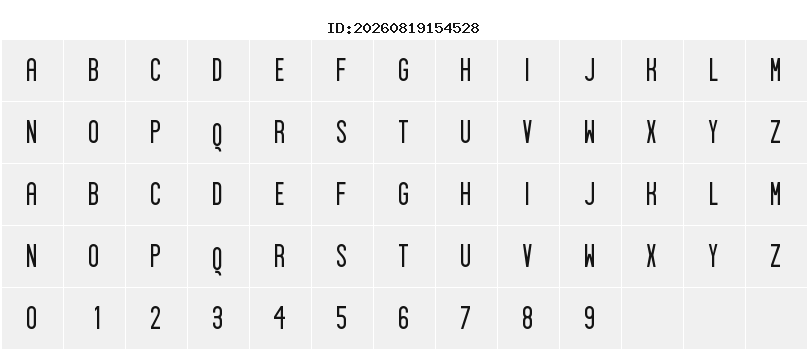
Sigward Preview
• Font Name: Sigward
• Full Font Name: Sigward
• PostScript Name: Sigward
About Sigward.ttf
Sigward.ttf is a modern, elegant sans-serif font designed for ultimate readability and visual harmony. Perfect for branding, headlines, web design, and print materials.